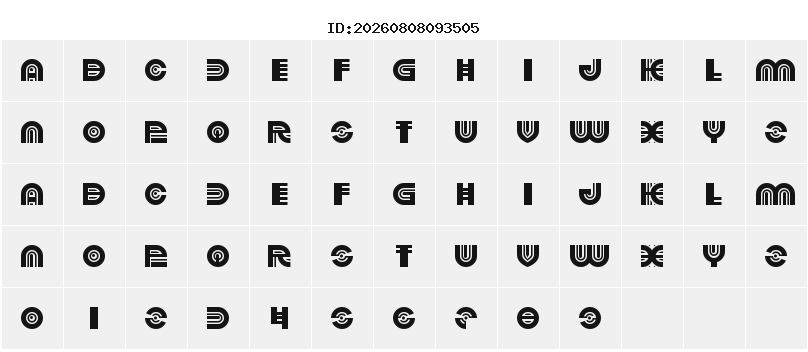
Pounds of Violence Preview
• Font Name: Pounds of Violence
• Full Font Name: Pounds of Violence
• Version: Version 1.00 May 31, 2016, initial release
• Designer: AM
About Pounds of Violence.otf
Pounds of Violence.otf is a modern, elegant sans-serif font designed for ultimate readability and visual harmony. Perfect for branding, headlines, web design, and print materials.